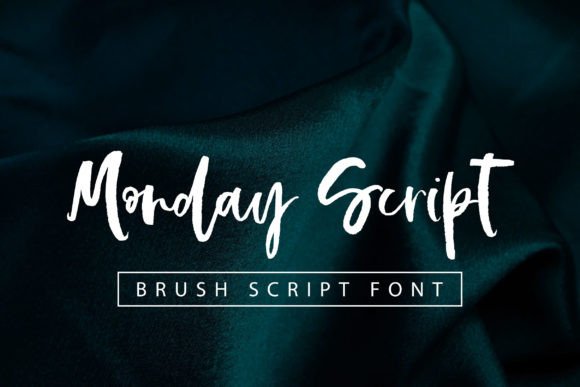
Introducing Monday Script Font, the best font for speech script that will elevate your design to new heights! Created by Bellinghamtype, this exquisite handwritten font is the epitome of elegance, intricacy, and uniqueness. With its fluid, hand-drawn style, Monday Script captivates the eye with delicate curves and sharp, pointed ends that gracefully dance across the page.
Are you tired of ordinary fonts that fail to make an impact? Look no further, as Monday Script is here to breathe life into your design projects. Whether you're working on invitations, logos, branding materials, or any other creative endeavor, this font will add a touch of sophistication and personality that is second to none.
What sets Monday Script apart from the rest is its PUA encoding, which grants you effortless access to all the glyphs and swashes at your fingertips. Unleash your creativity and explore the vast possibilities this font offers, allowing you to create truly unique and eye-catching designs.
Imagine the power of conveying your message with the elegance of handwritten script. Monday Script enables you to connect with your audience on a deeper level, evoking emotions and leaving a lasting impression. From heartfelt love letters to captivating product descriptions, this font lends an air of authenticity that cannot be replicated.
Not only does Monday Script excel in its aesthetic appeal, but it also possesses the versatility to adapt to any project. Whether you're aiming for a vintage-inspired look, a contemporary vibe, or something in between, this font effortlessly adapts to your creative vision. Its adaptability ensures that your designs will always stand out from the crowd and leave a lasting impact.
In a world where first impressions matter, Monday Script Font ensures that your message is not only heard but also felt. Elevate your designs, captivate your audience, and leave them wanting more with this exceptional font. Don't settle for mediocrity when you can have excellence at your fingertips.